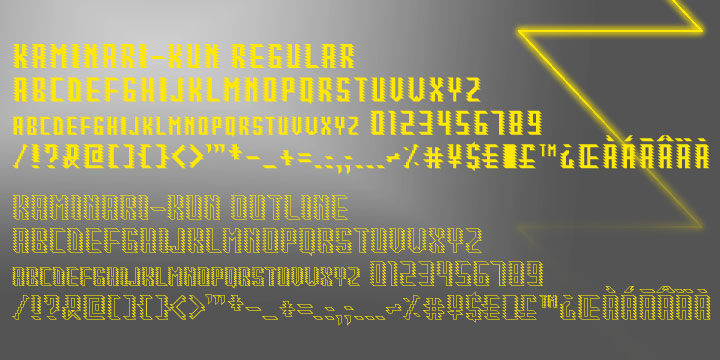
Looking for a bold and playful typeface inspired by Japanese manga and pop culture? Kaminari-Kun Font Free Download offers a dynamic, eye-catching design perfect for comic books, anime projects, youth branding, and creative posters. Its sharp lines and energetic style make your typography jump off the page.
Whether you're designing manga covers, event flyers, or trendy apparel branding, Kaminari-Kun Font Free Download delivers that punch of personality and style.